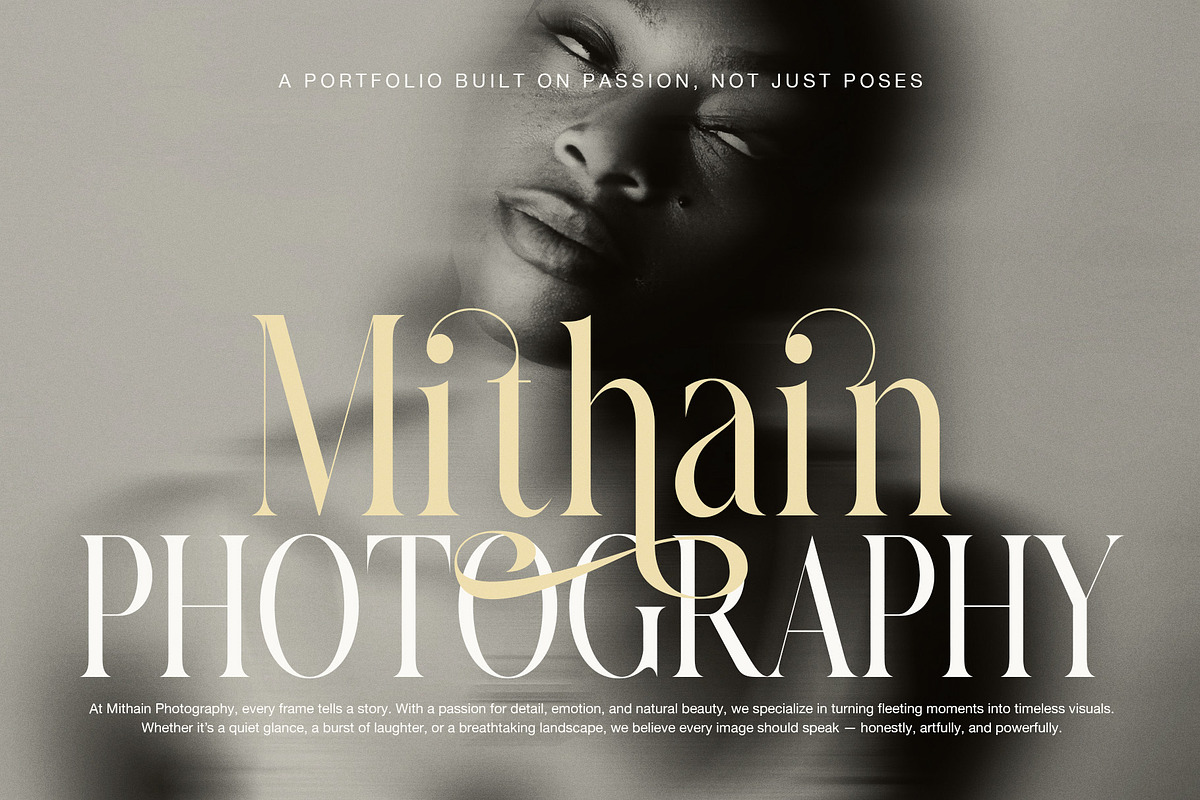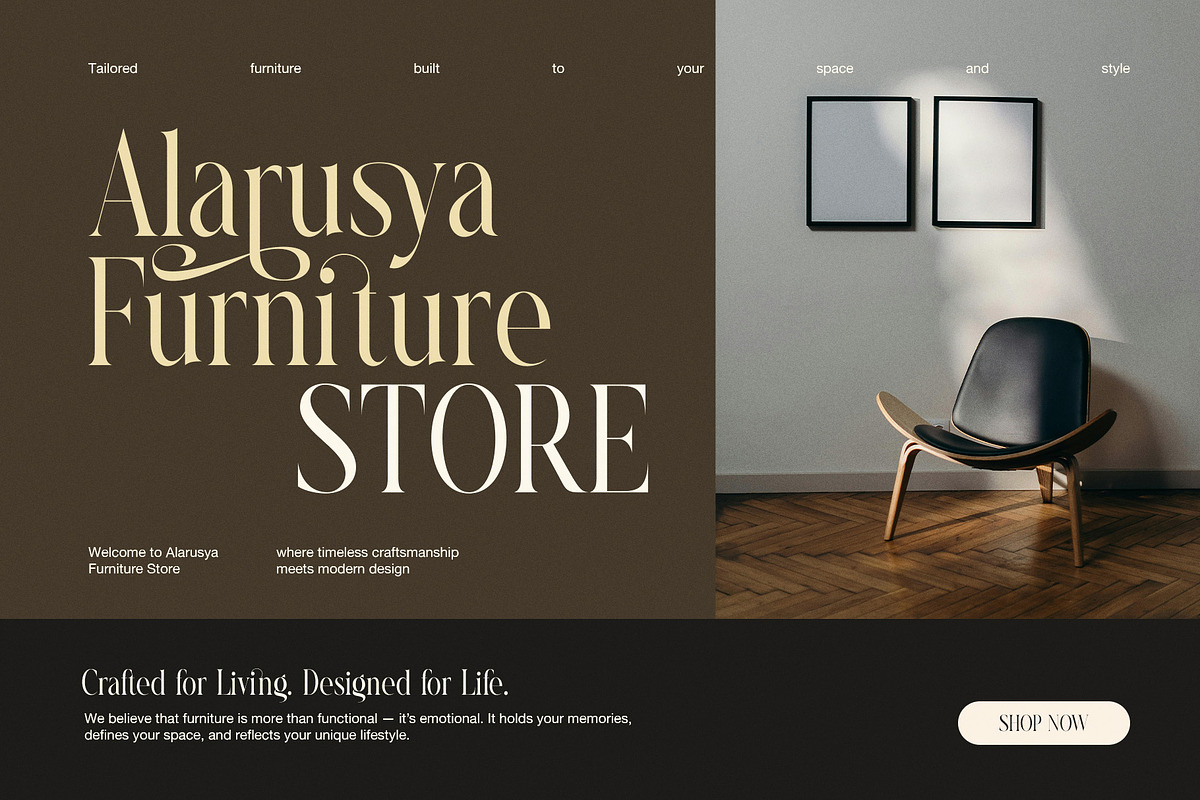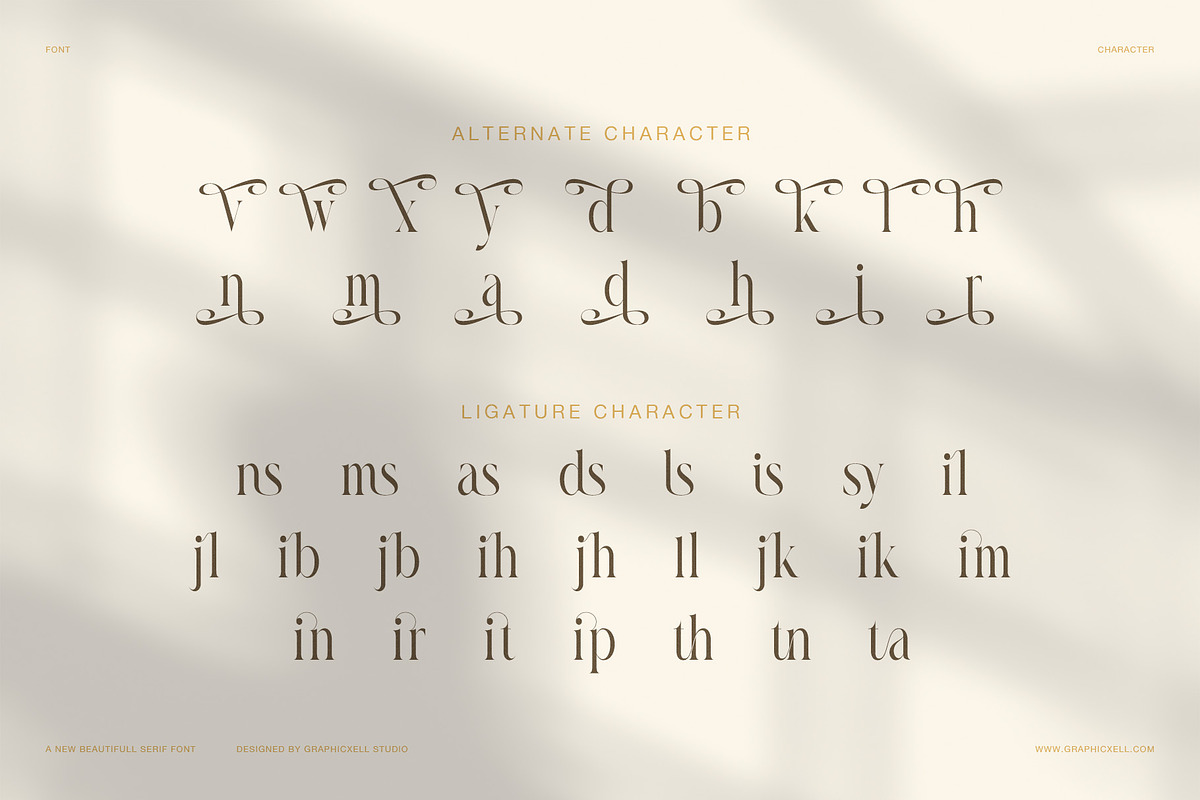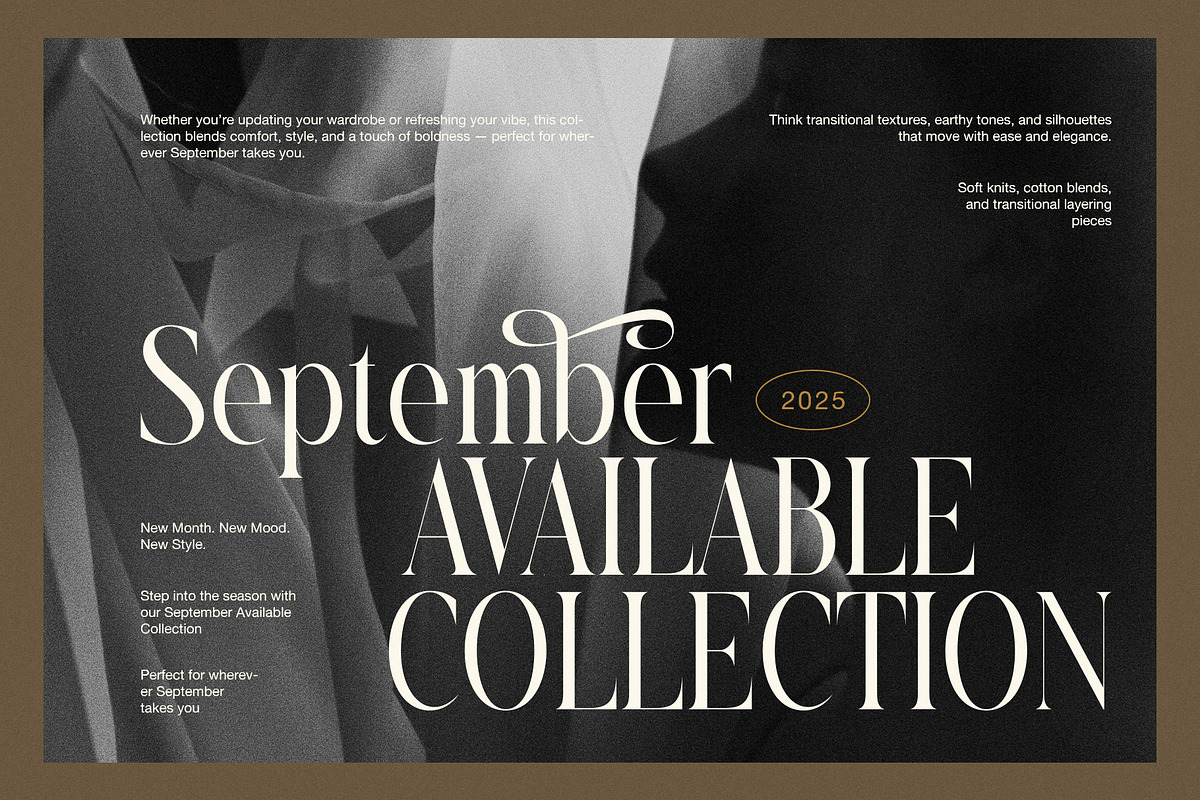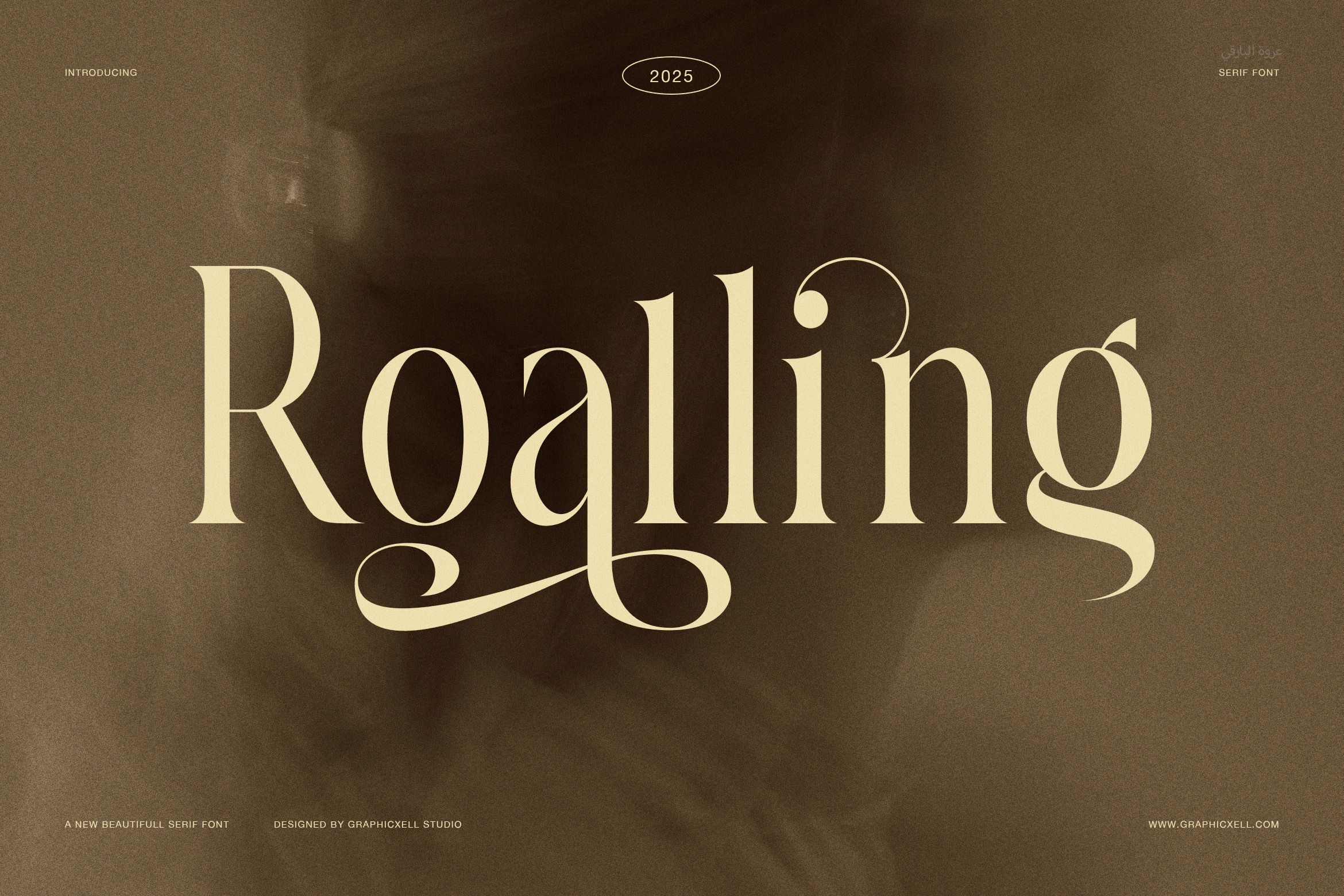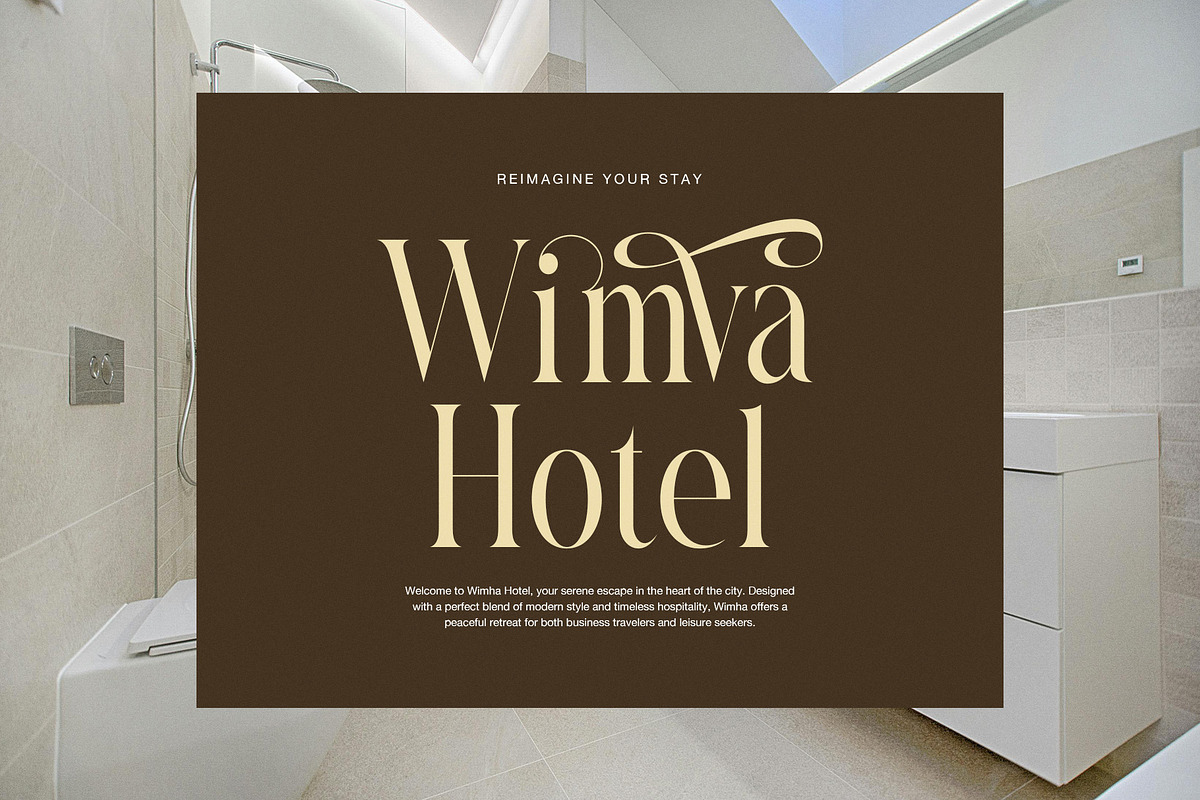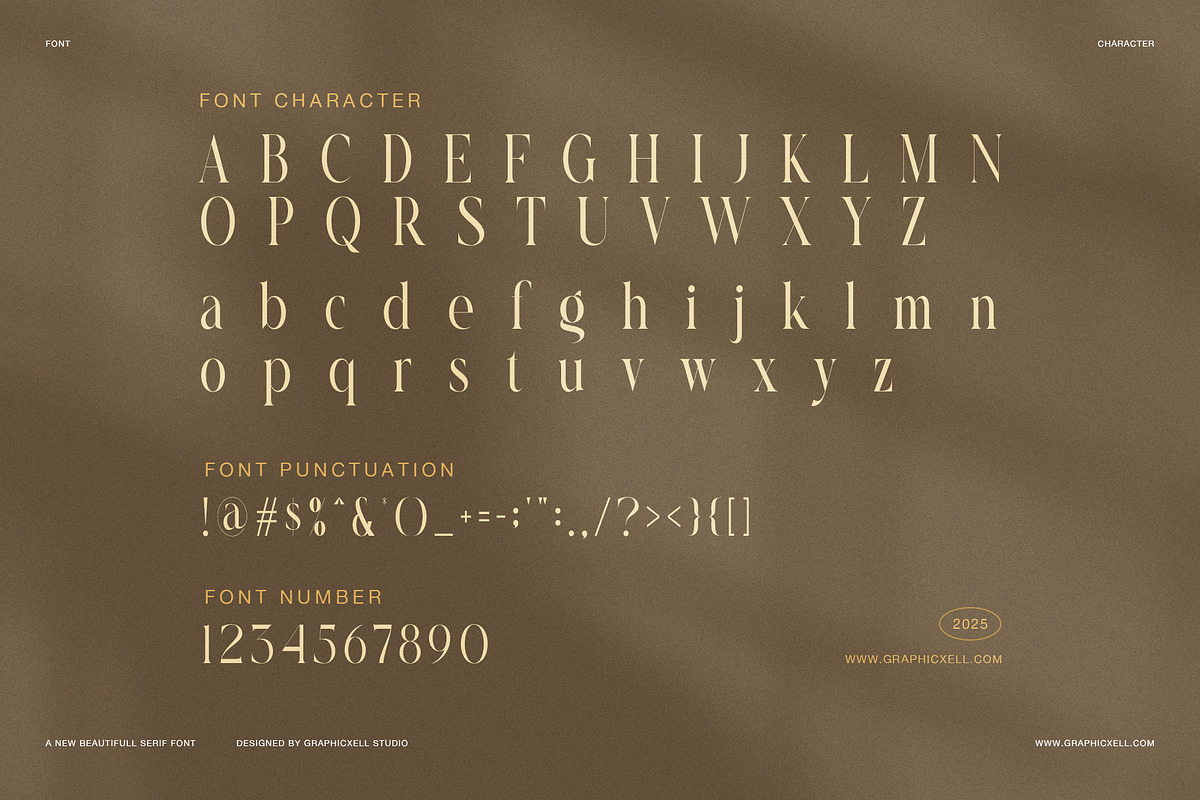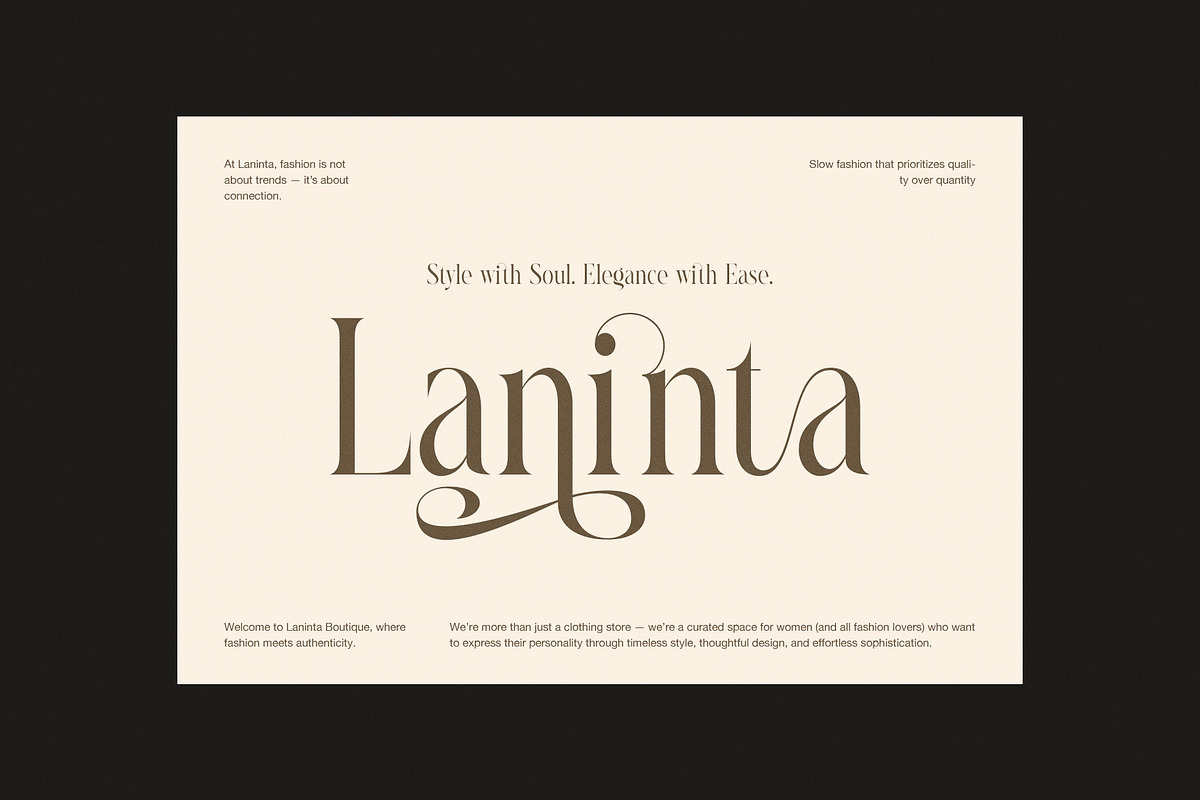
Roalling Elegant Serif Font
Discover the Roalling Elegant Serif Font, a refined display typeface crafted for luxury branding, editorial design, and elegant logo work. With its graceful serifs and high-contrast strokes, this font delivers a refined and sophisticated aesthetic. Moreover, it offers versatility for premium projects while retaining readability across print and digital mediums.
This typeface features:
Classic roman serifs combined with modern proportions for timeless appeal
Tall ascenders and descenders that give a sense of elegance and presence
Distinctive display letterforms that make headlines and logos stand out
Clean lowercase characters that maintain clarity even at larger sizes
Optional alternates or ligatures (depending on license) for creative flair
Full multilingual support (Latin-based languages) so projects can reach global audiences
Because it balances tradition with modern styling, Roalling is ideal for:
Luxury packaging and premium product labels
Fashion magazines, look-books, or editorial headlines
Wedding invitations, event signage, and upscale stationery
Boutique identity systems, upscale branding, and signature logos
High-end e-commerce headers or hero typography
Unlike overly decorative fonts, Roalling remains polished and readable, offering both aesthetic charm and functional clarity. Transitioning from text to display use, it adapts beautifully to design needs where sophistication is required. You will find that pairing it with a simple sans serif body font enhances its impact and keeps your layouts clean and modern.
For designers seeking more than a basic serif, Roalling gives you a statement typeface that also works quietly behind the scenes. Whether you’re creating a logo, a brand system, or a magazine headline, this font adds the finishing touch of elegance. Upgrade your design toolbox today with Roalling Elegant Serif Font and elevate your work with refined style and professional versatility.